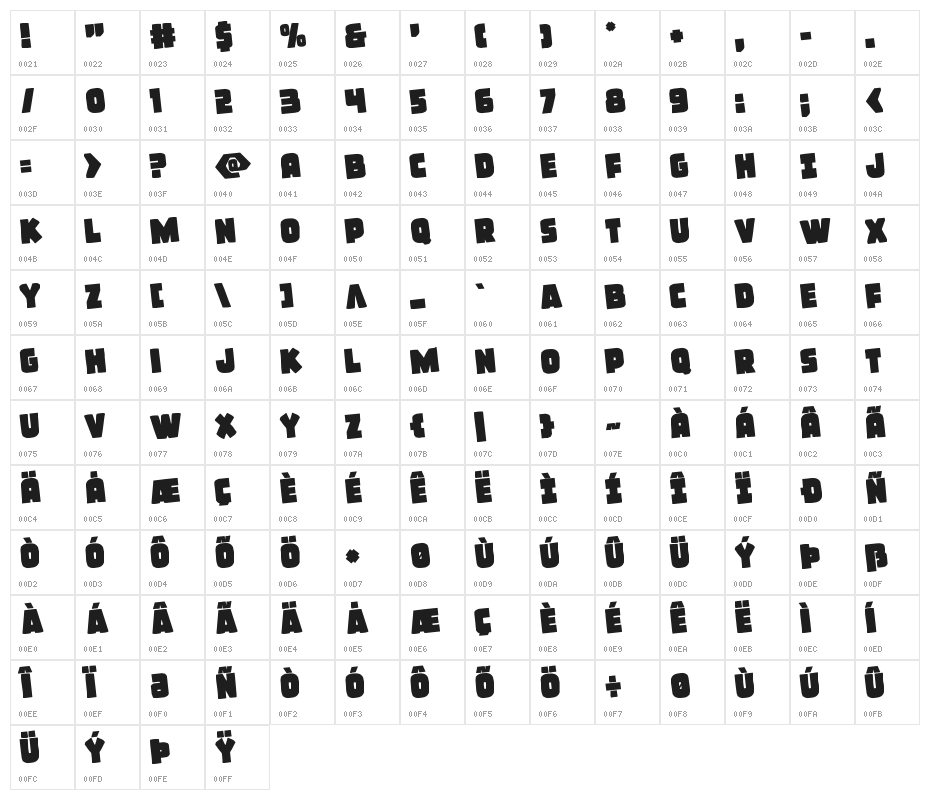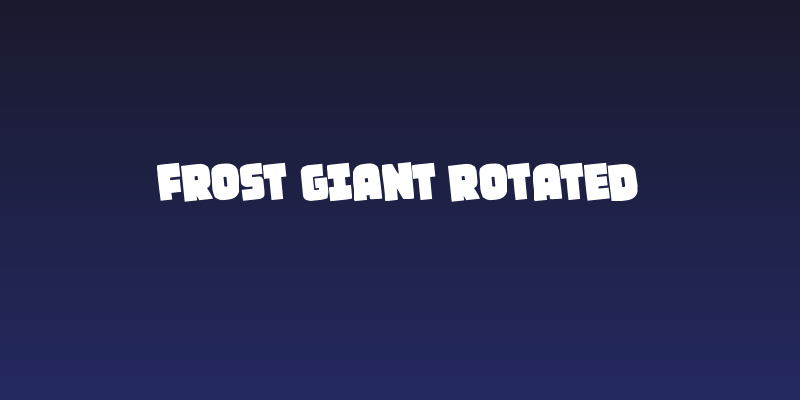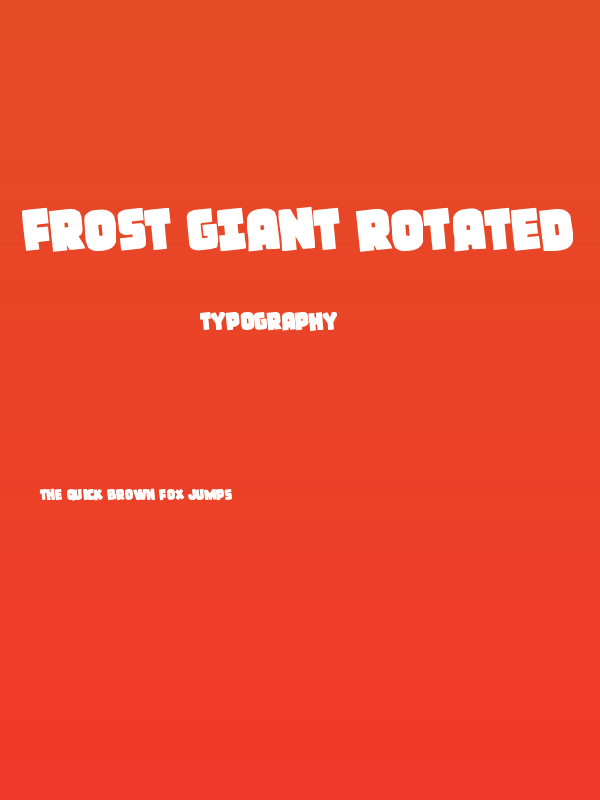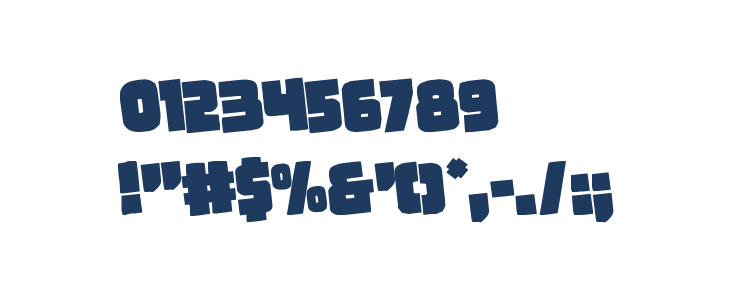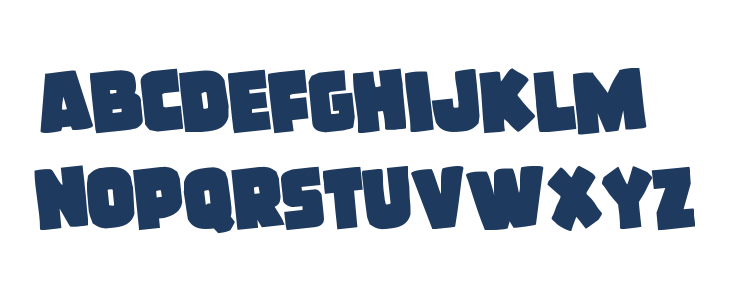
Frost Giant Rotated Font
Frost Giant Rotated Description
This font is bold and impactful, with a strong presence that commands attention. The characters are blocky and robust, featuring a slightly condensed width that enhances their boldness. The strokes are thick and uniform, providing a consistent and powerful appearance. The edges are slightly rounded, adding a touch of softness to the otherwise strong and assertive design. This font is ideal for making statements and grabbing attention, suitable for headlines and logos where a bold and memorable impression is desired.